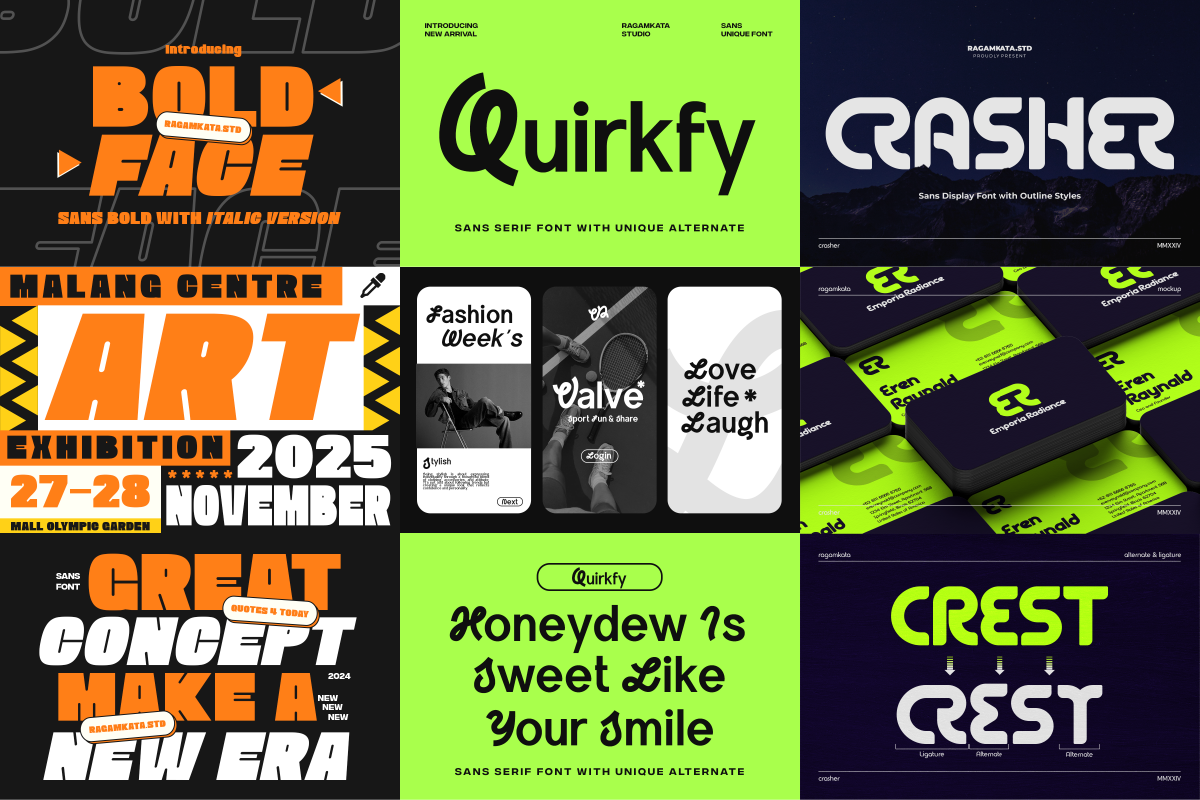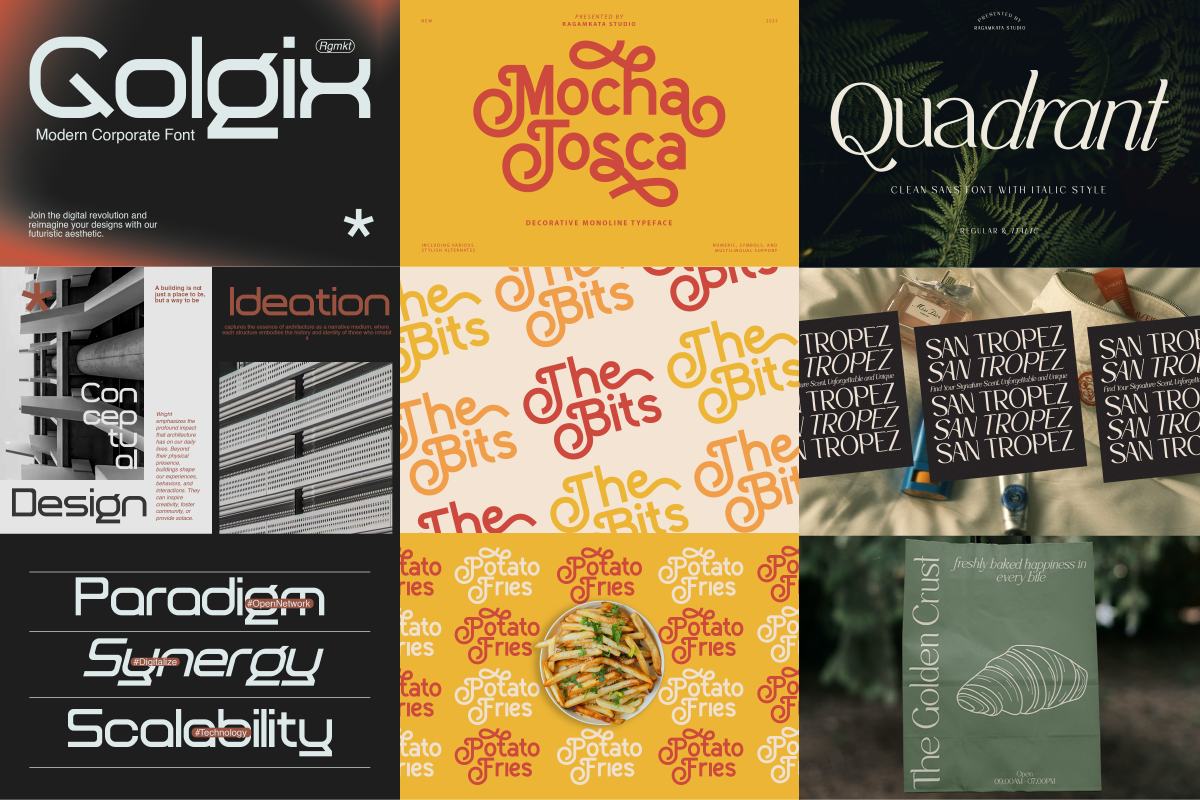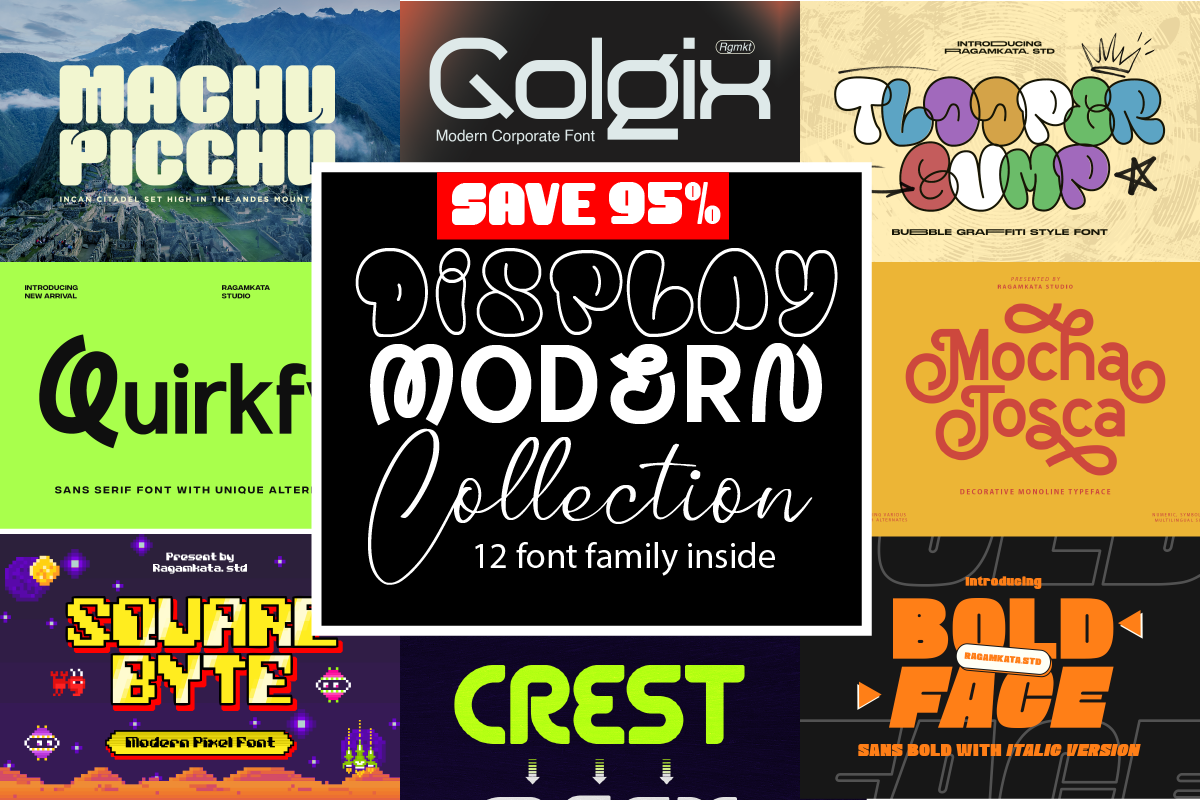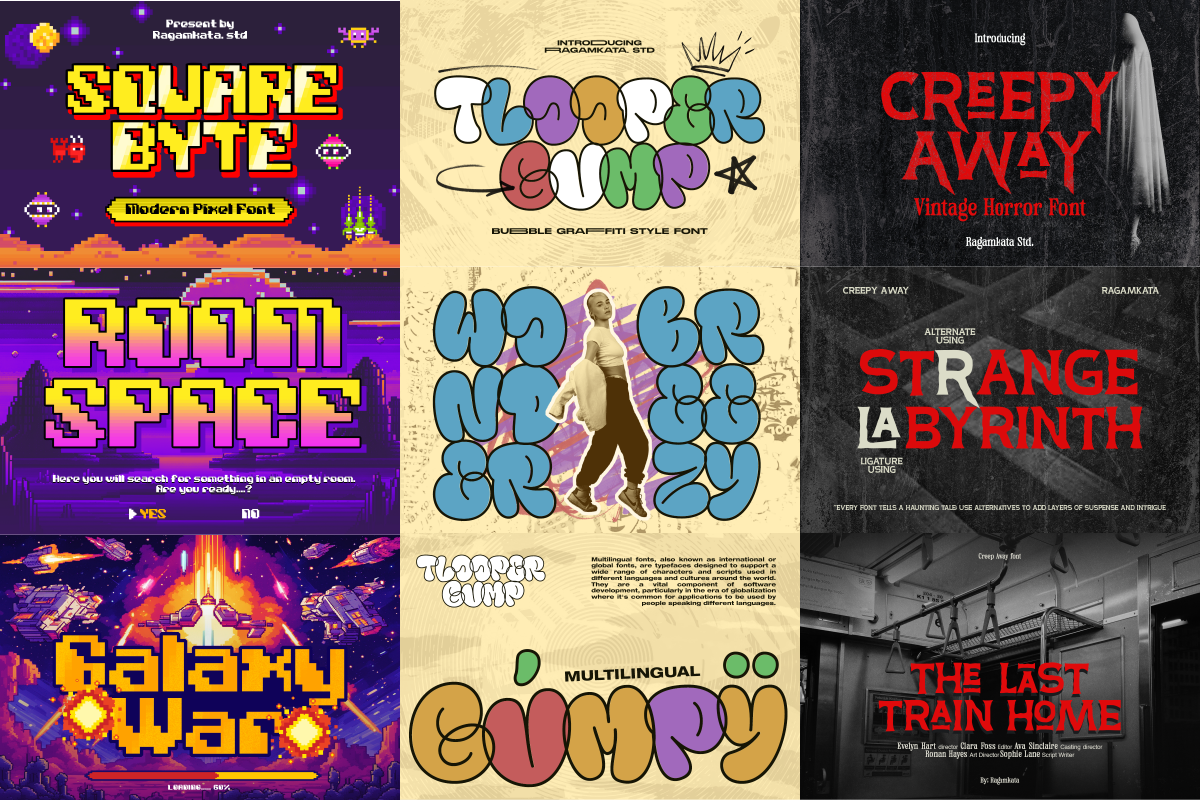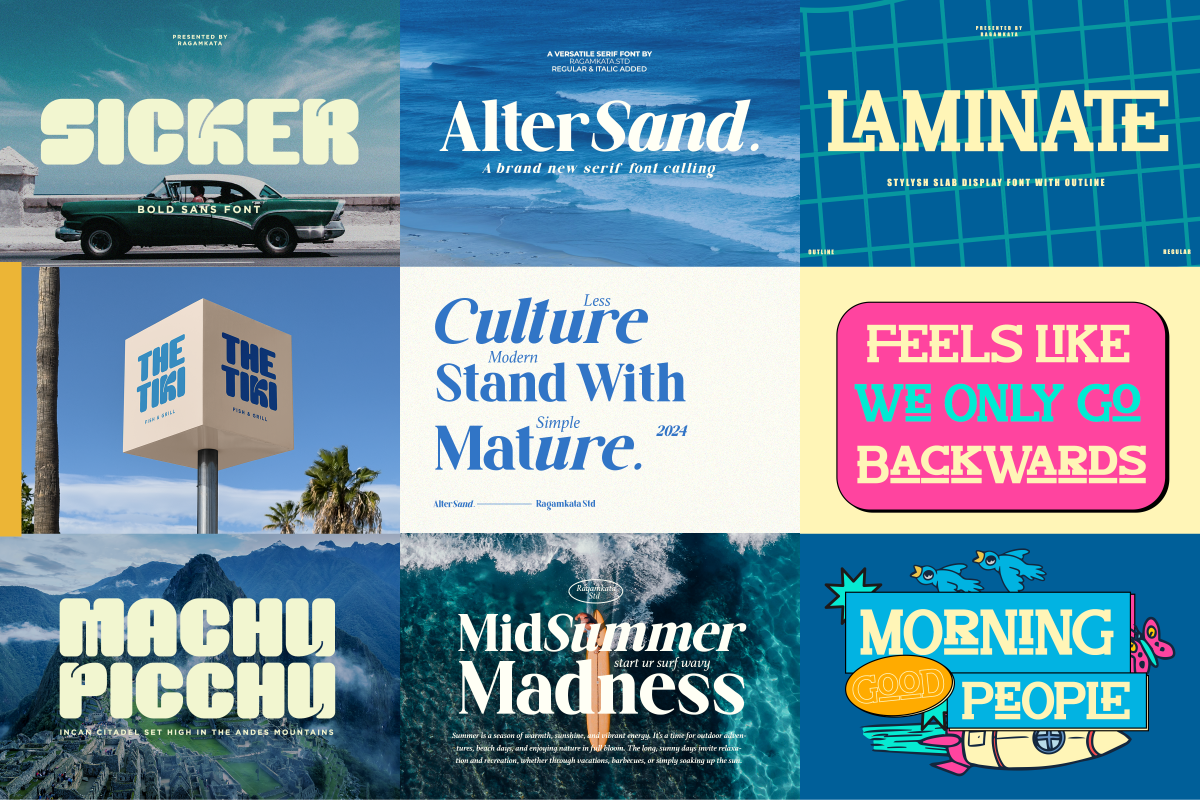
Display Modern - Bundle Font
Display Modern Font Collection – 12 Unique Display Fonts in One Bundle!
Give your creative projects a bold and unforgettable touch with this Display Modern Font Collection, featuring 12 high-impact display font families in one powerful bundle! From quirky sans serifs to futuristic tech fonts, from retro pixel styles to playful graffiti lettering—this collection has everything you need to grab attention.
This font bundle is perfect for:
- Posters, logos, album covers
- Social media graphics
- Packaging design
- Game titles and pixel art
- Streetwear branding
- Editorial layouts and more!